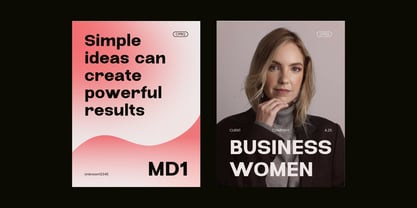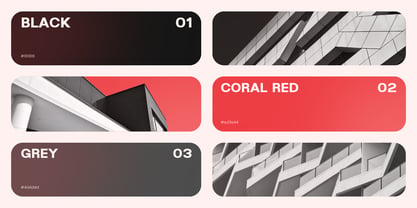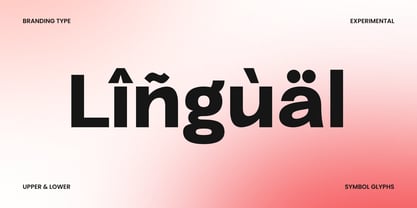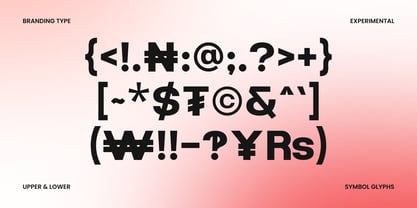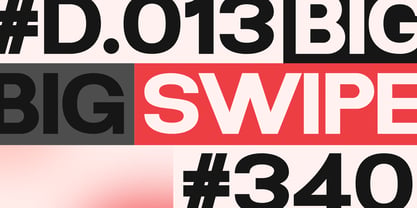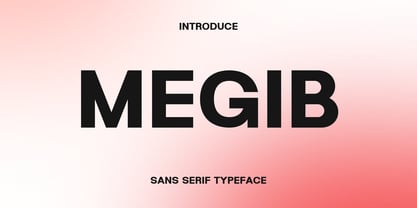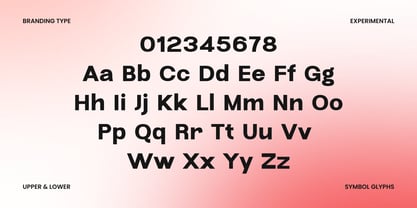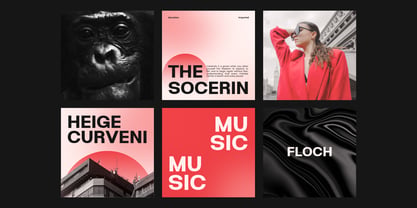
Megib
von Maikohatta
Die Schriftfamilie Megib wurde von Gilang Ternadho entworfen und von Maikohatta veröffentlicht. Megib enthält 1 Stile. Mehr über diese Familie
Introducing our new product Megib – Modern Bold Sans Serif Megib is a bold, modern sans serif typeface designed for strong visual impact and high readability. With its clean geometry and balanced proportions, Megib offers a contemporary look that's well-suited for both digital and print media. This typeface is ideal for branding, logos, headlines, posters, social media content, packaging. Its bold structure creates confidence and clarity, making it suitable for corporate identities, startups, and modern creative projects. Megib's minimalist style ensures flexibility while maintaining a strong presence. Whether used in large display sizes or compact layouts, this font remains clear, professional, and visually appealing.
Designer: Gilang Ternadho
Foundry: Maikohatta